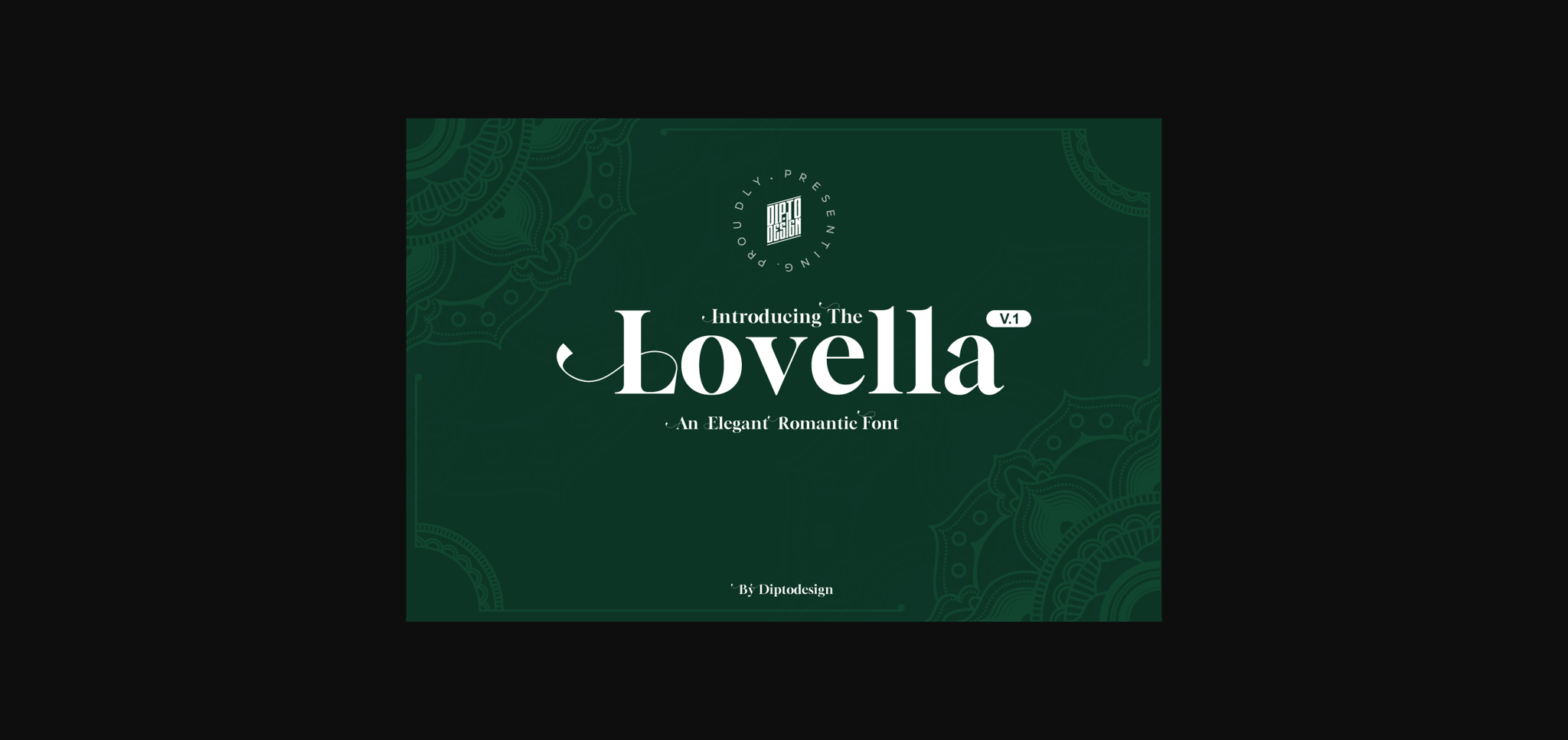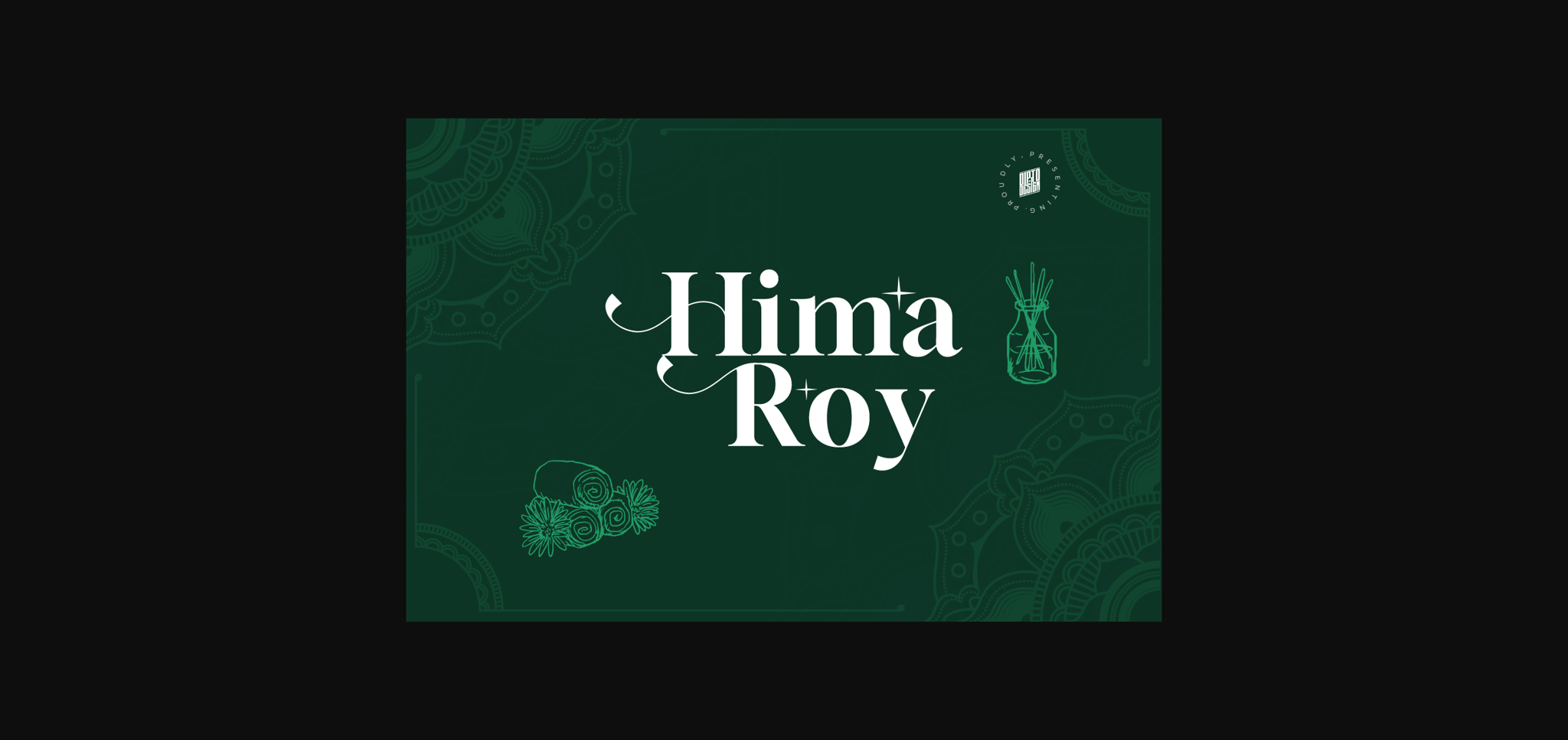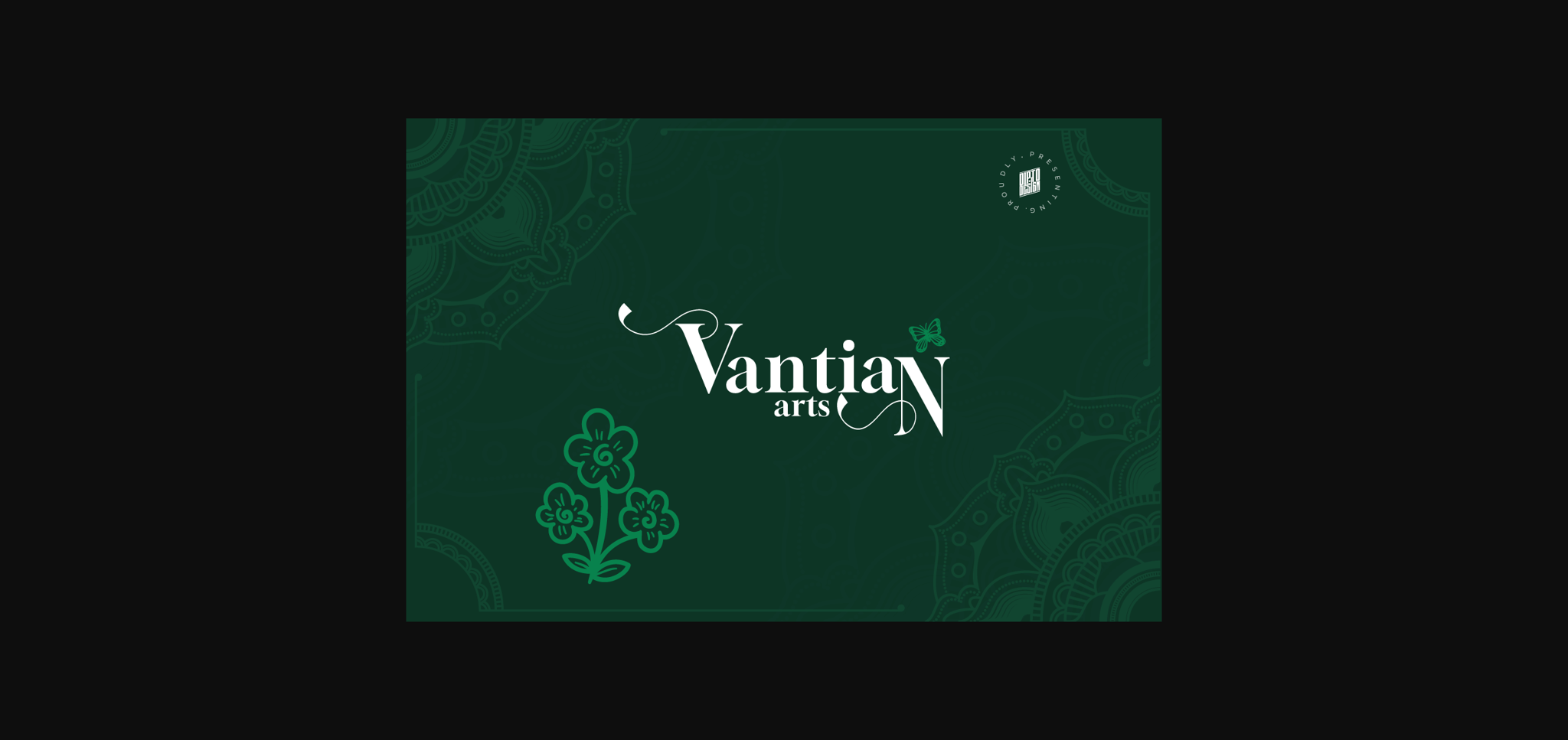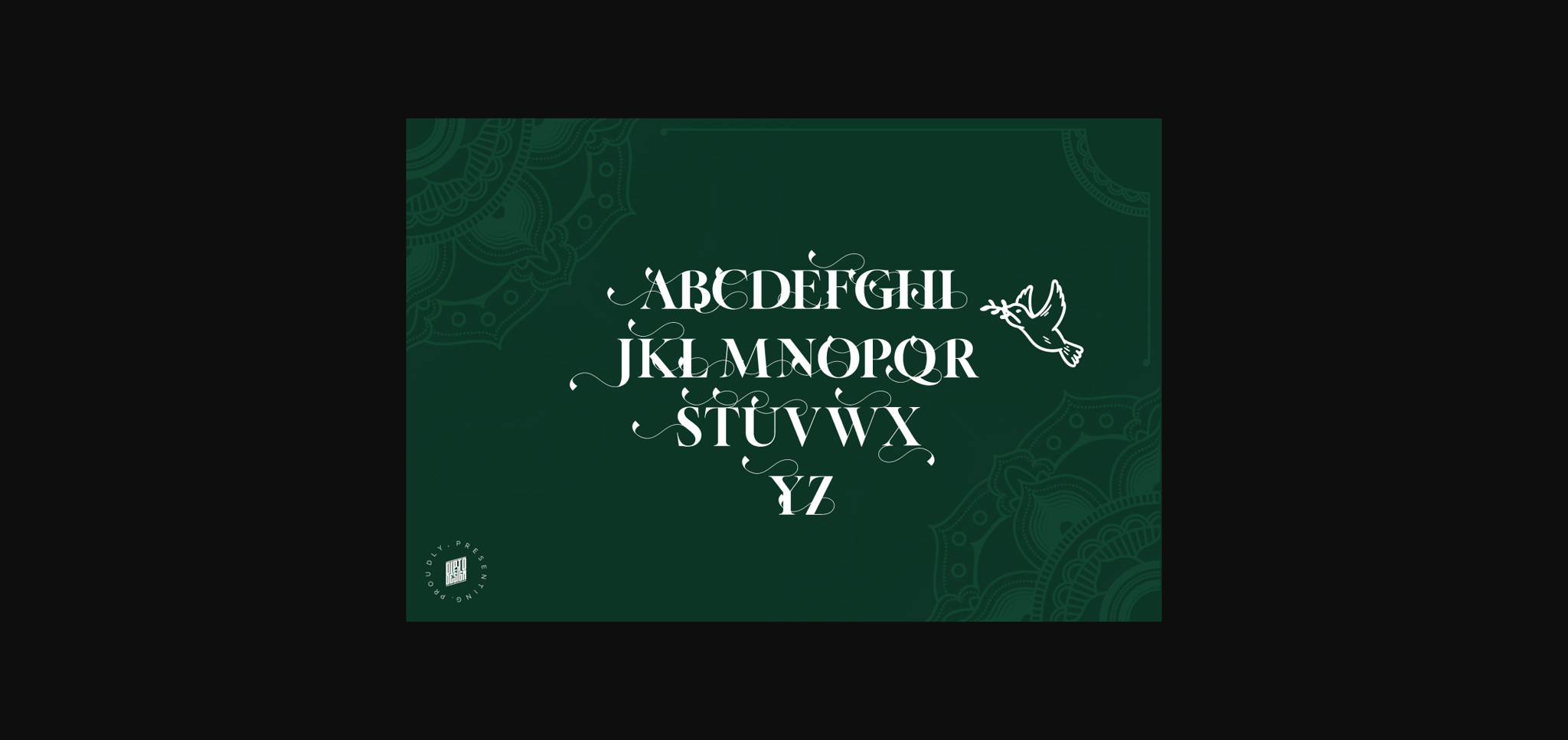
About Lovella Font
Meet “Lovella” — the font that dances with whimsy! Designed for playful creativity, this display font brings joy to logos and headlines. With a lively character set, “Lovella” is the perfect blend of fun and professionalism.